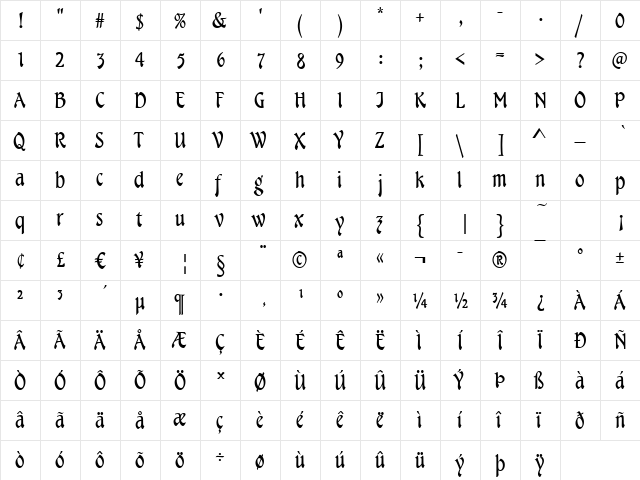
Tampico Regular
Design Context for Tampico Typeface
Tampico takes a measured approach to typography — its balanced proportions and neutral character make it a reliable workhorse for both digital and print work.
Pro Tip: Pair Tampico with a font of contrasting weight or personality to build a more expressive typographic hierarchy.